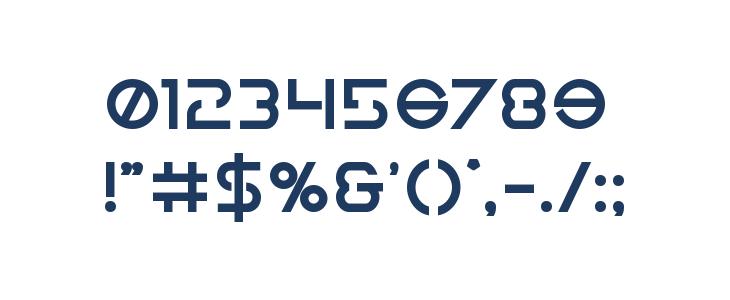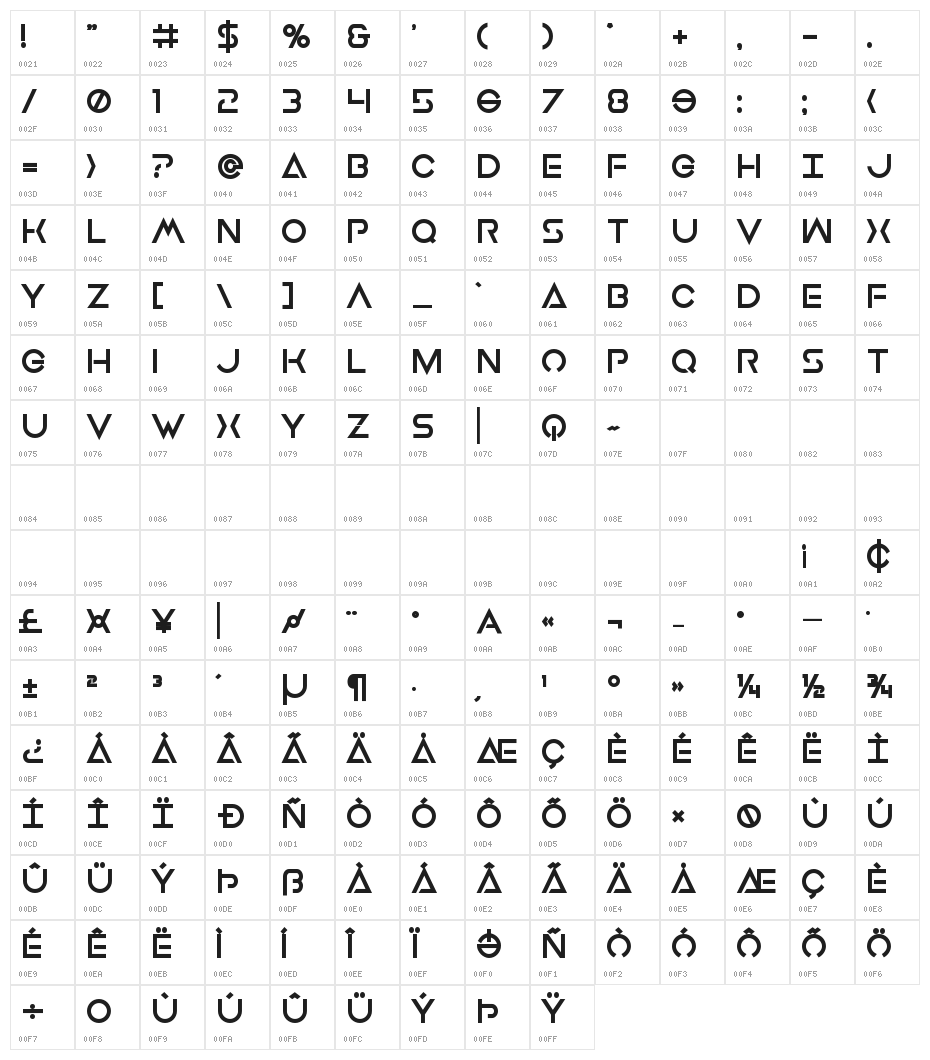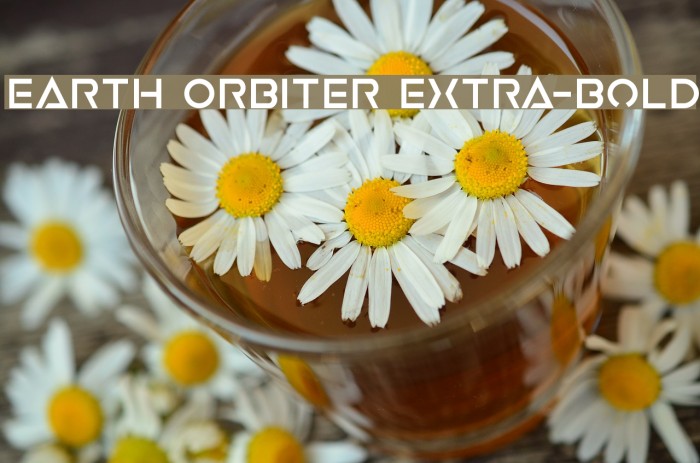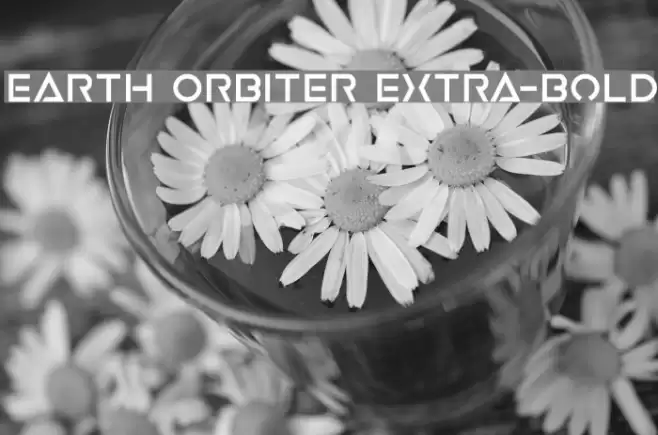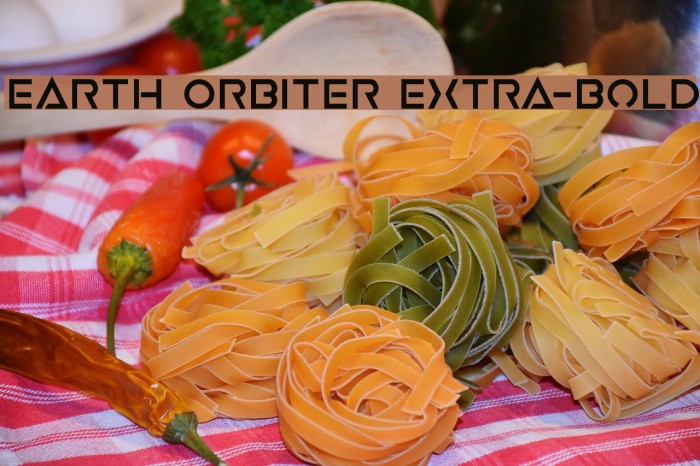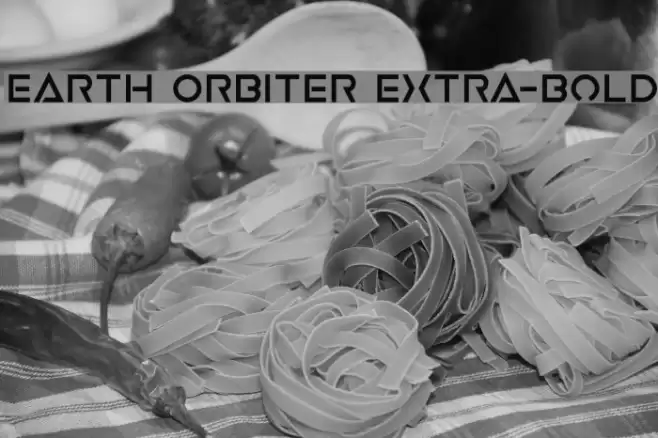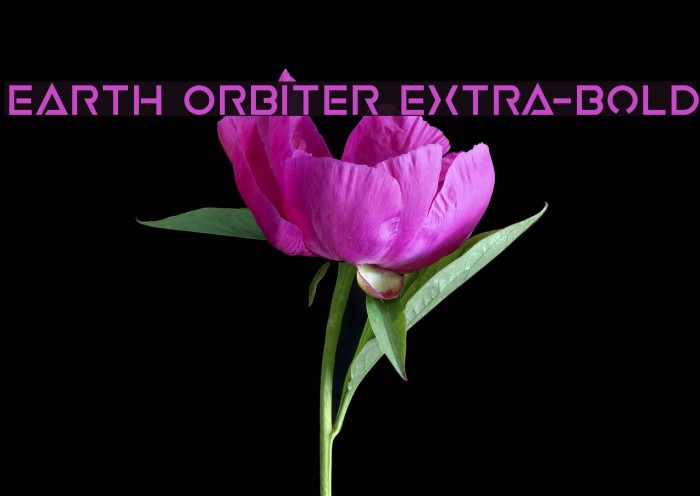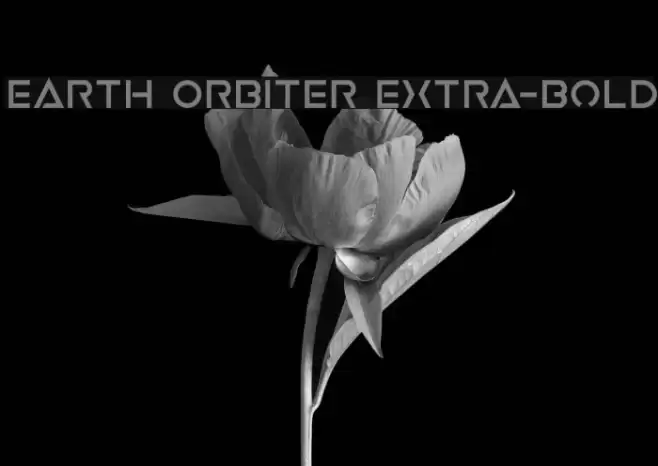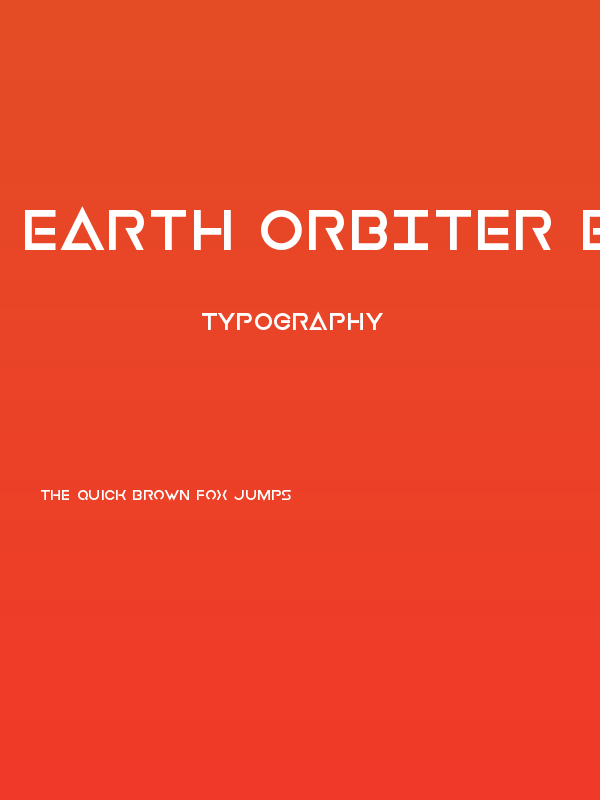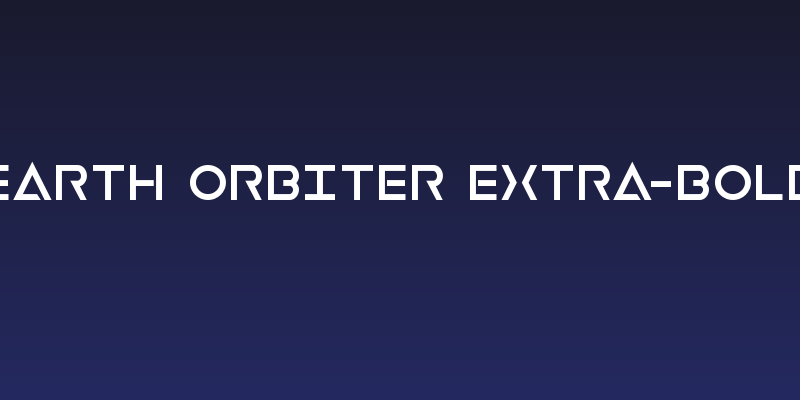
Earth Orbiter Extra-Bold Font
Earth Orbiter Extra-Bold Description
This font features a futuristic and geometric design, characterized by bold, angular shapes and clean lines. The uppercase letters exhibit a unique blend of sharp angles and smooth curves, creating a dynamic and modern appearance. The numerals and special characters maintain this aesthetic, with consistent stroke thickness and a cohesive style. The overall look is both striking and versatile, suitable for a variety of design applications. The font's boldness and distinctiveness make it ideal for projects that require a strong visual impact.